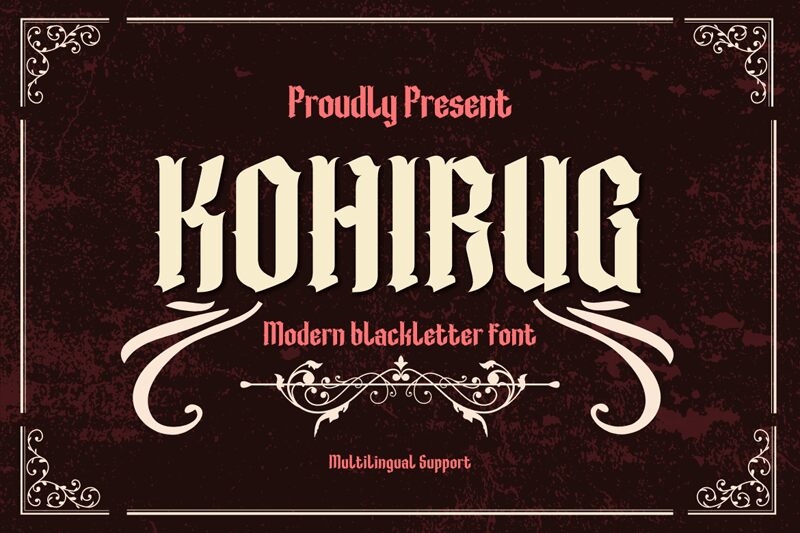
KOHIRUG-Regular
The KOHIRUG Blackletter font, designed by Twinletter, is a gothic font with a modern twist. Its semi-light weight and extra-condensed width create a unique and sleek appearance. This font is suitable for a wide range of projects that require an air of style and elegance.
It can be used to add a touch of sophistication to wedding invitations, create eye-catching logos for high-end fashion brands, or bring an edgy yet refined look to album covers. With its striking details and bold classic aesthetic, the KOHIRUG Blackletter font is sure to make a lasting impression in any design endeavor.